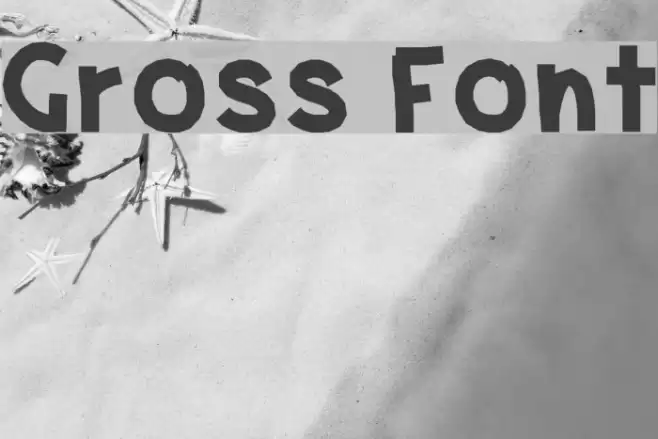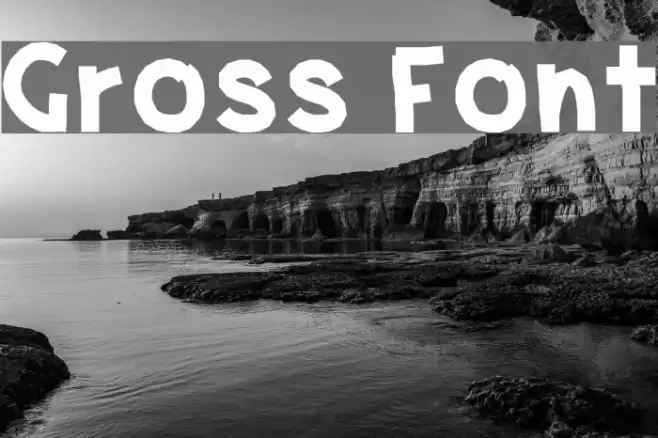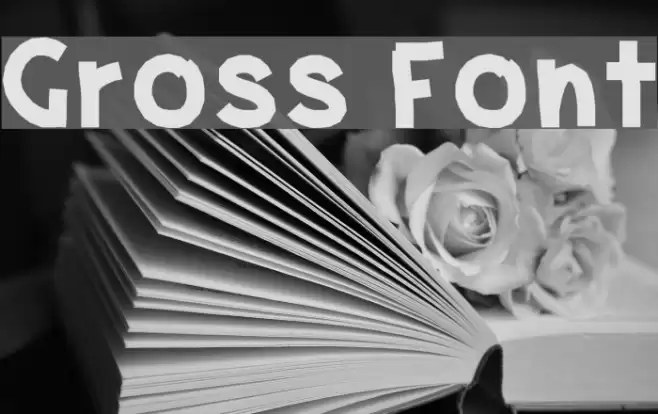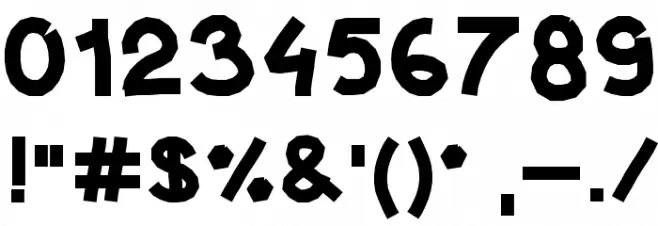
Gross Font
Gross Description
This font features a playful and bold design with irregular, hand-drawn characteristics. The letters have a chunky appearance with uneven edges, giving them a lively and informal feel. The uppercase and lowercase letters maintain a consistent style, with the lowercase being slightly more rounded. Numbers and special characters follow the same whimsical design, making the font suitable for creative and fun projects. The overall look is reminiscent of a child's handwriting or a cartoonish style, adding a sense of humor and approachability.
A playful, hand-drawn font with bold, irregular shapes from Uncategorized fonts.
- Proposed Projects: Ideal for children's books, comic strips, playful branding, and informal invitations.
- Overall Style: Playful, Cartoonish